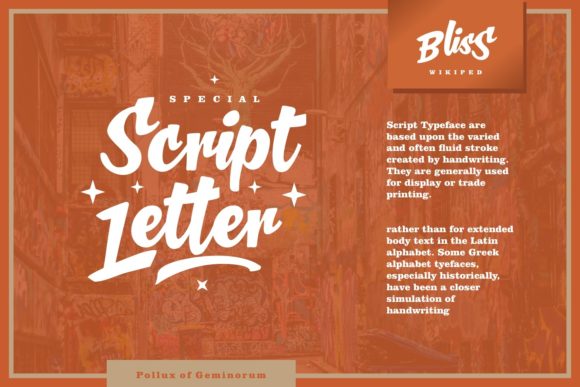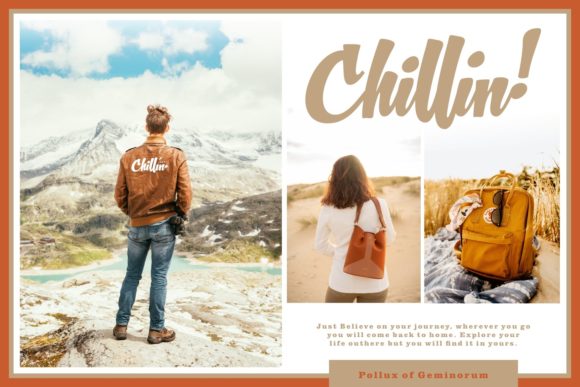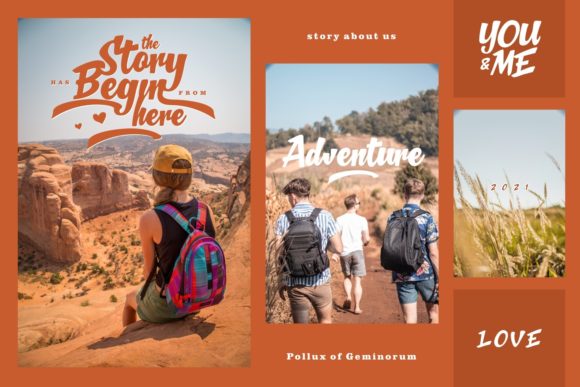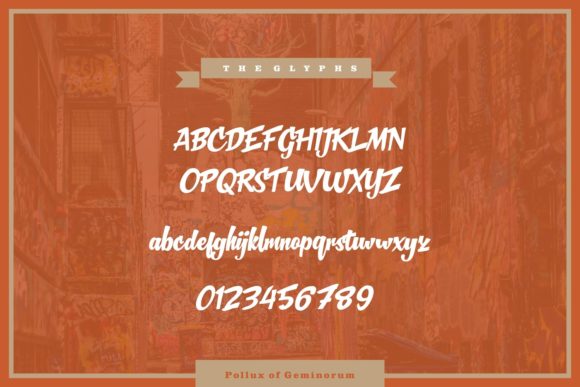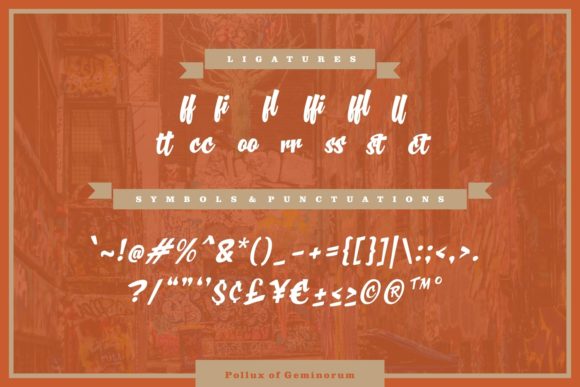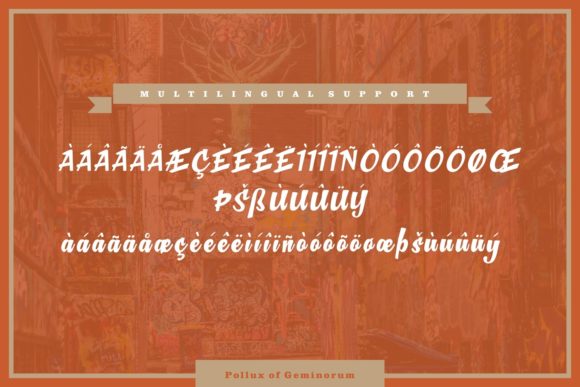
Introducing Boldejack Font: Elevate Your Designs with a Stylish and Confident Touch
Are you tired of using the same old fonts for your headlines and logotype projects? Look no further than Boldejack Font, a gorgeous and bold handwritten font that’s sure to give your designs a stylish touch. With its strong, confident, and dynamic appearance, Boldejack is the perfect choice for designers and crafters looking to add a nostalgic character to their work.
What Makes Boldejack Font So Special?
Boldejack Font is a carefully crafted handwritten font that’s designed to make a statement. Its bold and dynamic appearance reads as strong and confident, making it perfect for headlines, logotypes, and other design projects where you want to grab attention. But what really sets Boldejack apart is its nostalgic character, which adds a touch of warmth and personality to your designs.
One of the best things about Boldejack Font is that it’s PUA (Private Use Area) encoded, which means you can access all glyphs and swashes with ease. This makes it easy to customize your designs and add unique touches that set your work apart. With PUA encoding, you can access a wide range of glyphs and swashes, giving you the flexibility to create truly one-of-a-kind designs.
Boldejack Font is perfect for designers and crafters who want to add a touch of style and sophistication to their work. Whether you’re working on a logo design, a brochure, or a website, Boldejack is the perfect choice. Its bold and dynamic appearance makes it perfect for headlines and titles, while its nostalgic character adds a touch of warmth and personality to your designs.
Key Features of Boldejack Font
- Bold and dynamic appearance: Boldejack Font is designed to make a statement, with a bold and dynamic appearance that’s sure to grab attention.
- Nostalgic character: Boldejack has a warm and nostalgic character that adds a touch of personality to your designs.
- PUA encoded: Boldejack is PUA encoded, making it easy to access all glyphs and swashes.
- Perfect for headlines and logotypes: Boldejack is designed specifically for headlines and logotypes, making it perfect for designers and crafters.
Tips and Tricks for Getting the Most Out of Boldejack Font
- Use Boldejack for headlines and titles: Boldejack is designed specifically for headlines and titles, so use it to make a statement.
- Experiment with different colors and textures: Boldejack looks great in a variety of colors and textures, so don’t be afraid to experiment.
- Pair Boldejack with other fonts: Boldejack pairs well with other fonts, so try pairing it with a sans-serif font for a unique look.
Boldejack Font is a gorgeous and bold handwritten font that’s perfect for designers and crafters looking to add a stylish touch to their work. With its strong, confident, and dynamic appearance, Boldejack is sure to make a statement. And with PUA encoding, you can access all glyphs and swashes with ease. So why wait? Download Boldejack Font today and start creating stunning designs that grab attention.